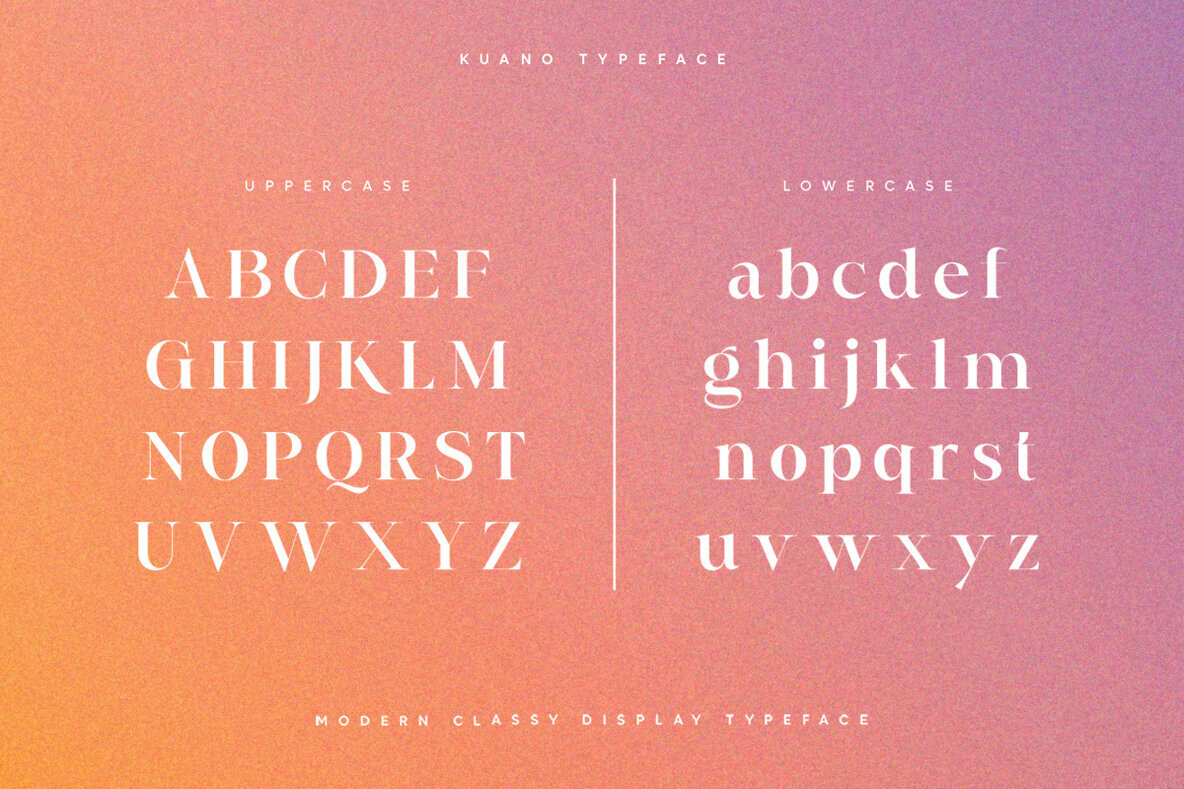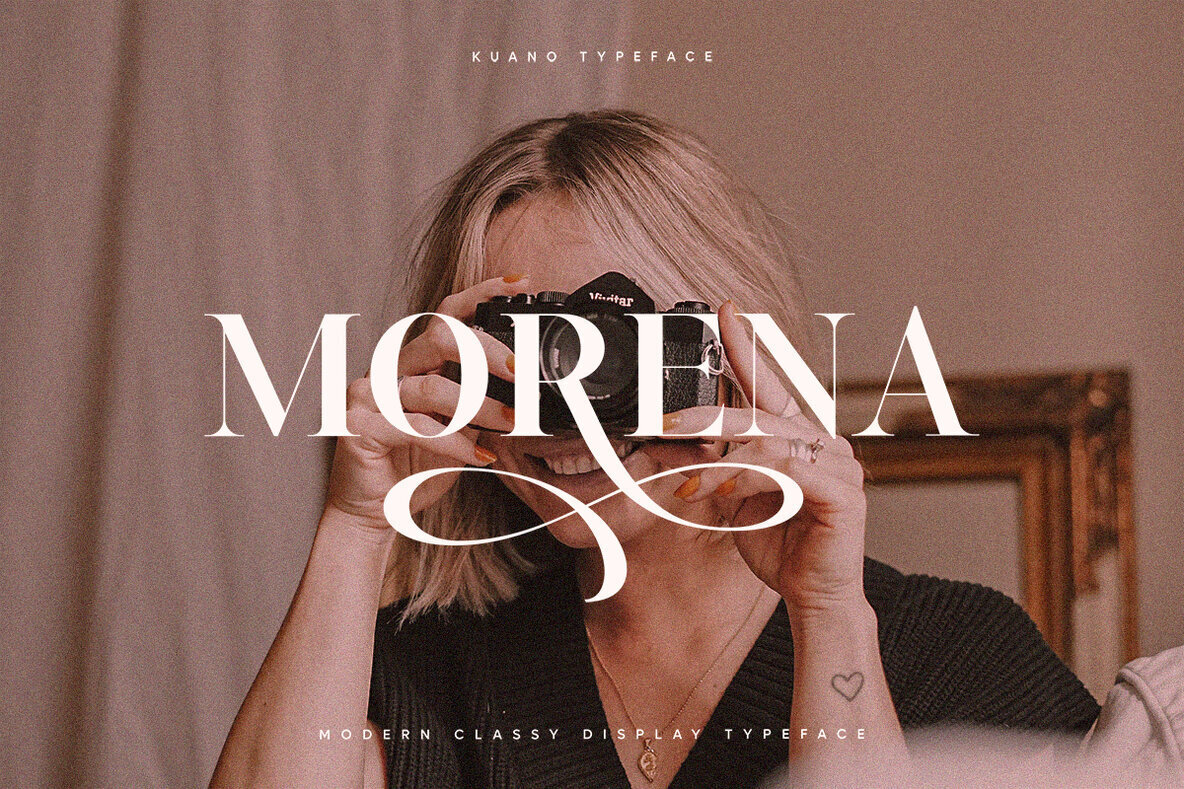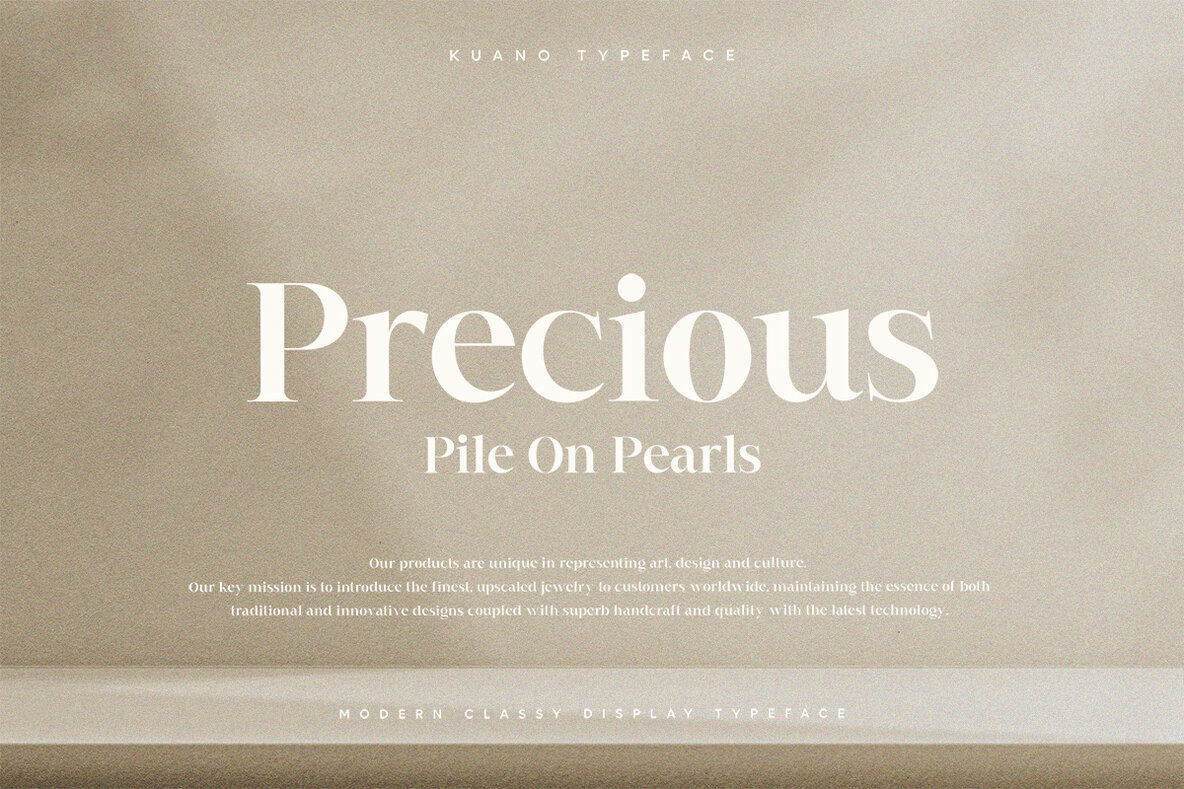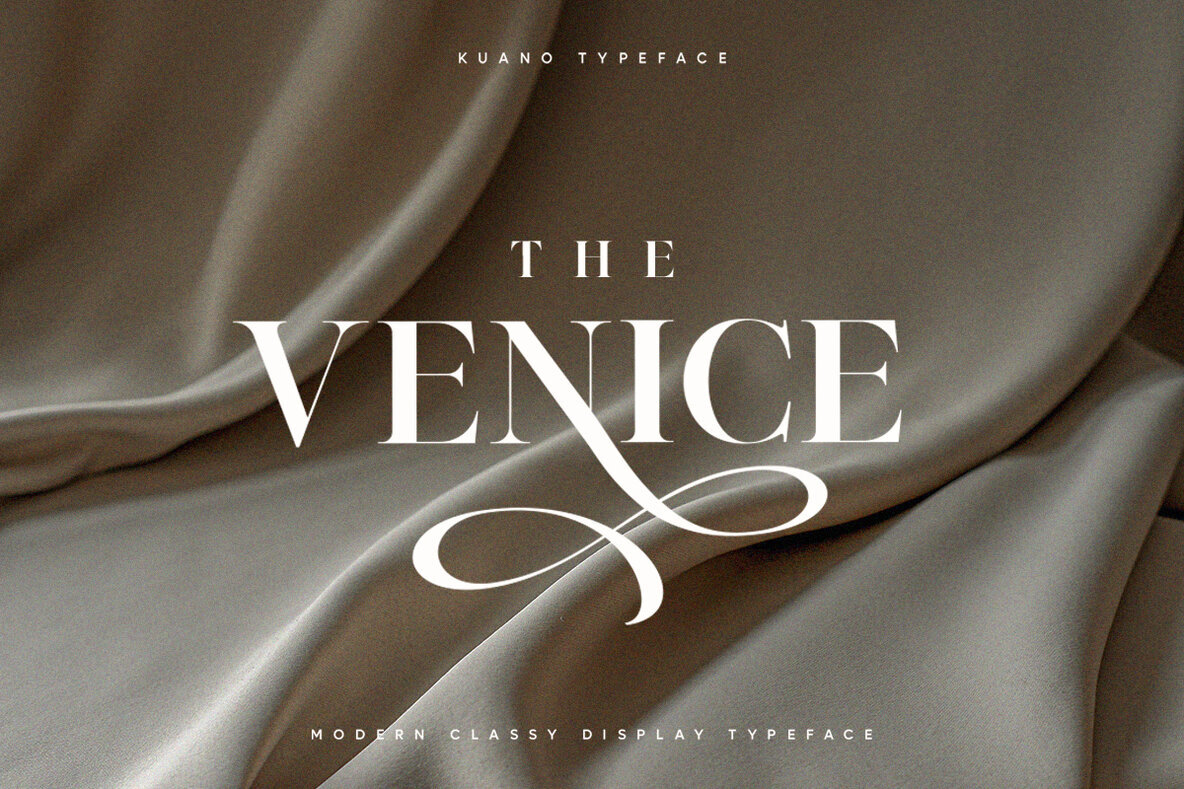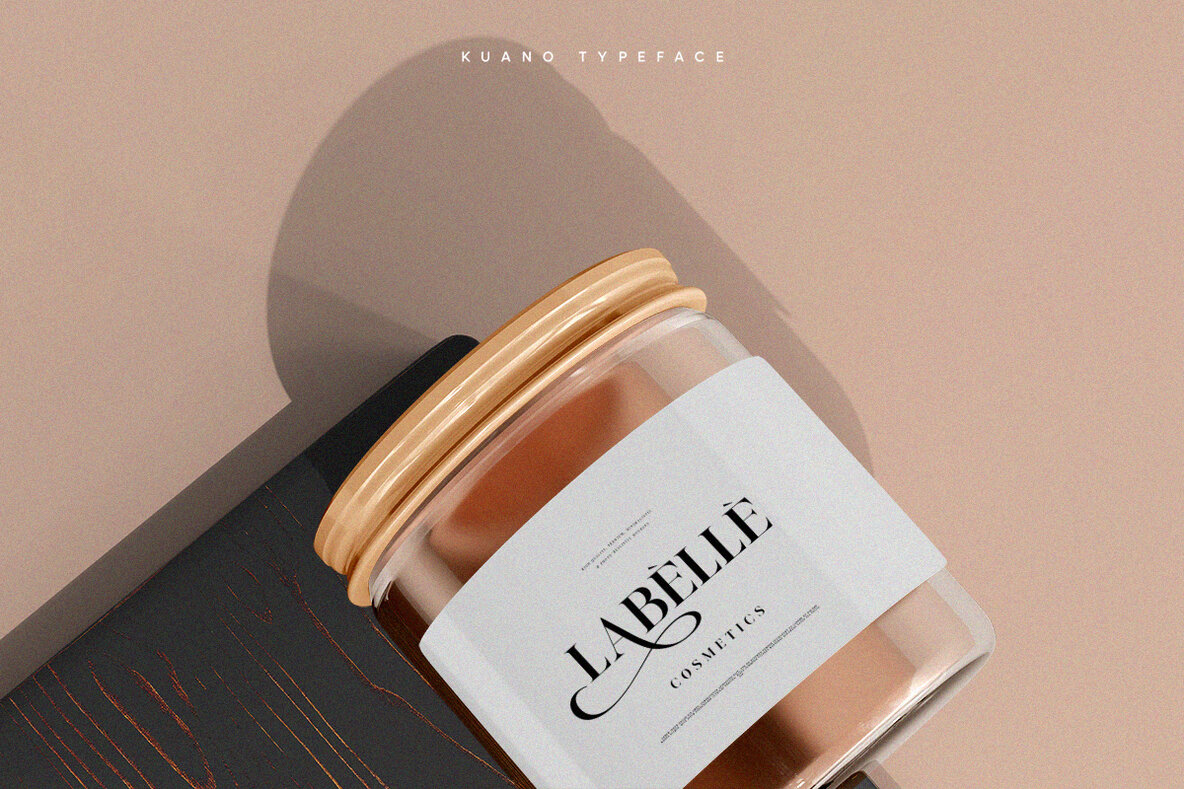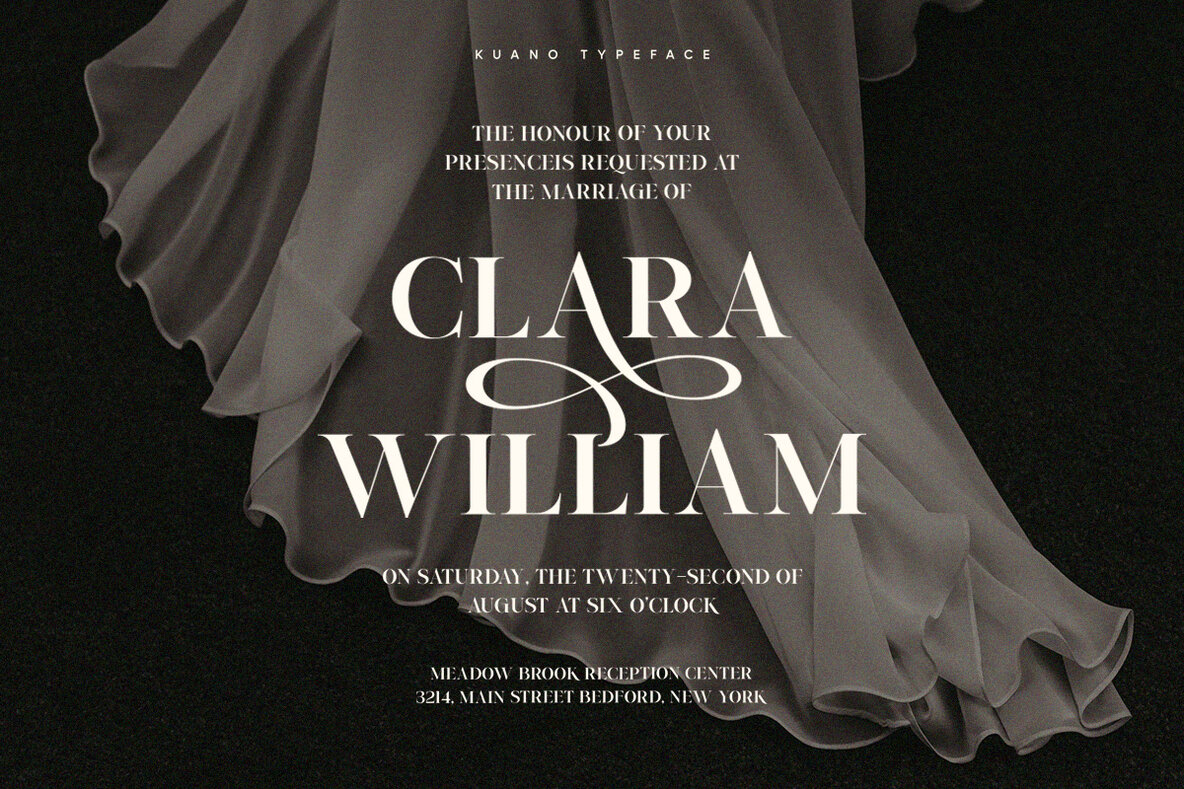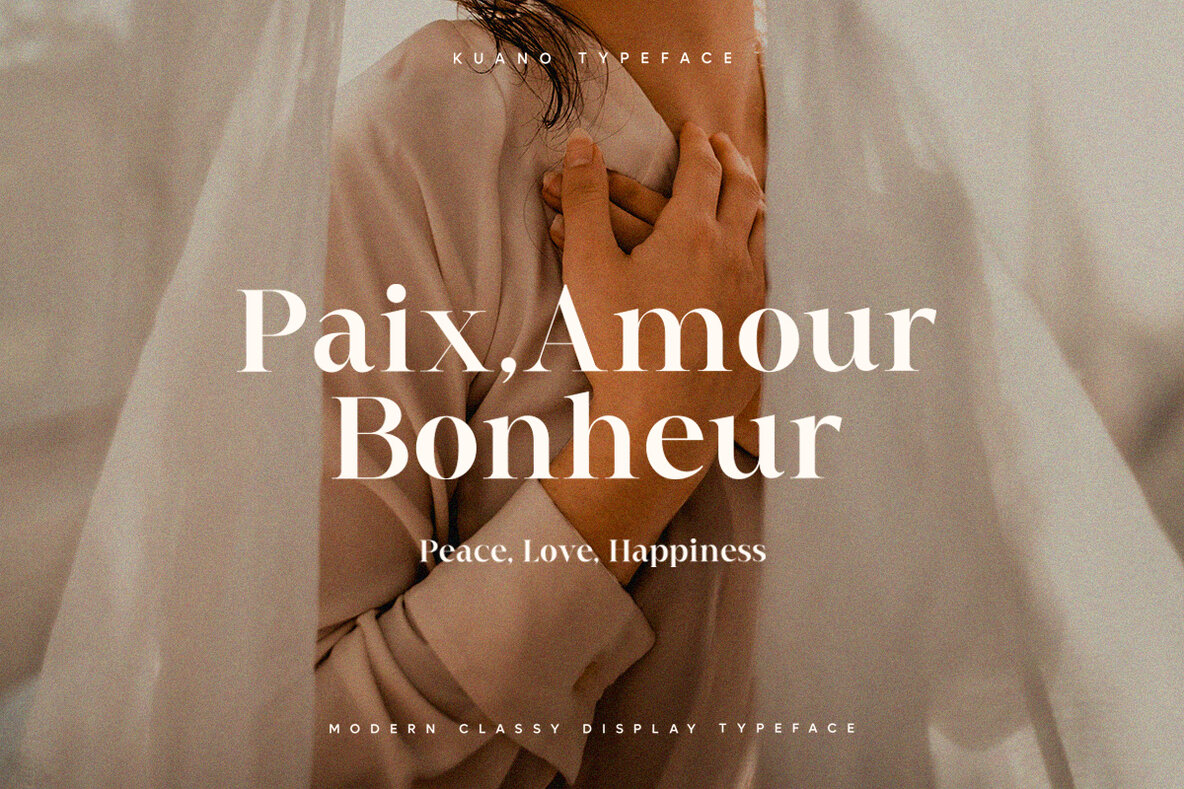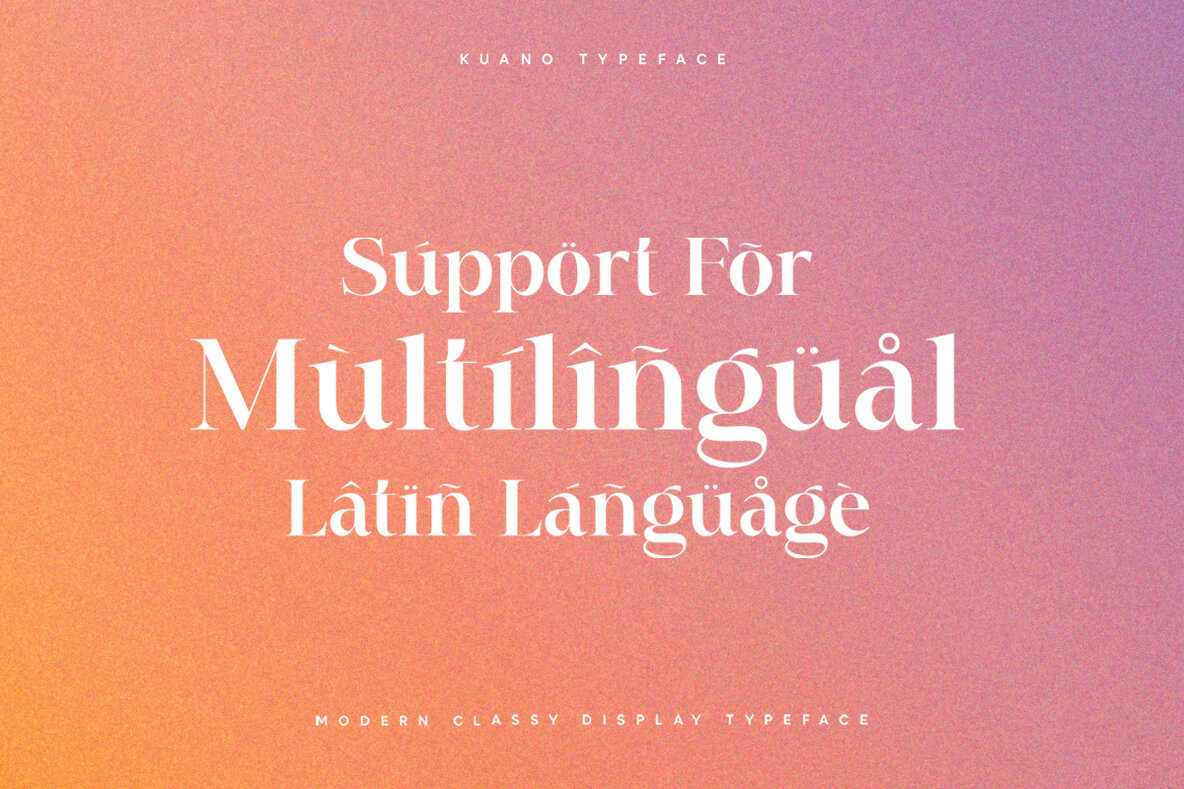
Kuano
The Kuano font by Pentagonistudio offers a sophisticated touch to your design projects. Drawing inspiration from both contemporary and ligature elements, this display serif exudes elegance and versatility, accommodating a variety of creative needs. Usage Notes: For any licensing inquiries or to request additional language support, please contact the designer directly.Kuano: Classy Display Serif with Modern Flair